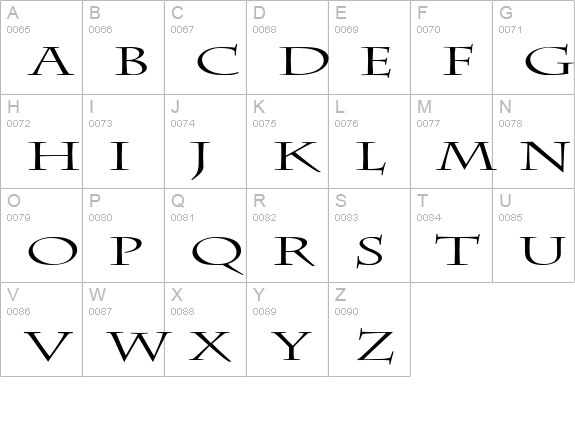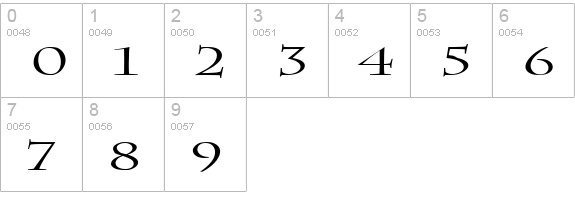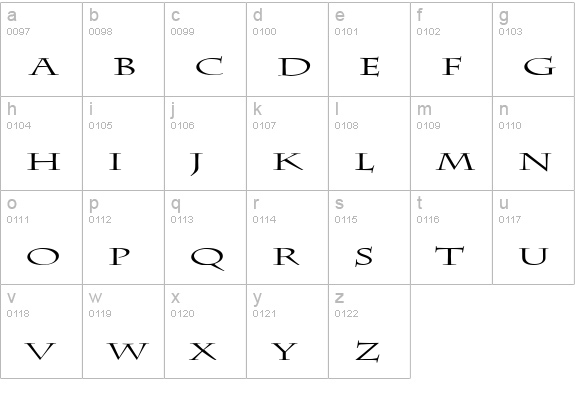
Chaz Extended Normal Font Details
Chaz Extended Normal is the standard, neutral, extended-width variant in the Chaz typeface family \xE2\x80\x94 well suited to general body text, paragraphs, and standard typographic work.
Chaz Extended Normal font is a sleek and modern typeface that is perfect for adding a touch of sophistication to your designs. Its extended characters and clean lines make it ideal for a wide range of projects, from branding to editorial design. This versatile font is free to download at FontsMarket.com, making it easily accessible for all designers looking to elevate their work with a touch of elegance. Whether you're working on a website, a poster, or a logo, Chaz Extended Normal font is sure to make a statement and leave a lasting impression.